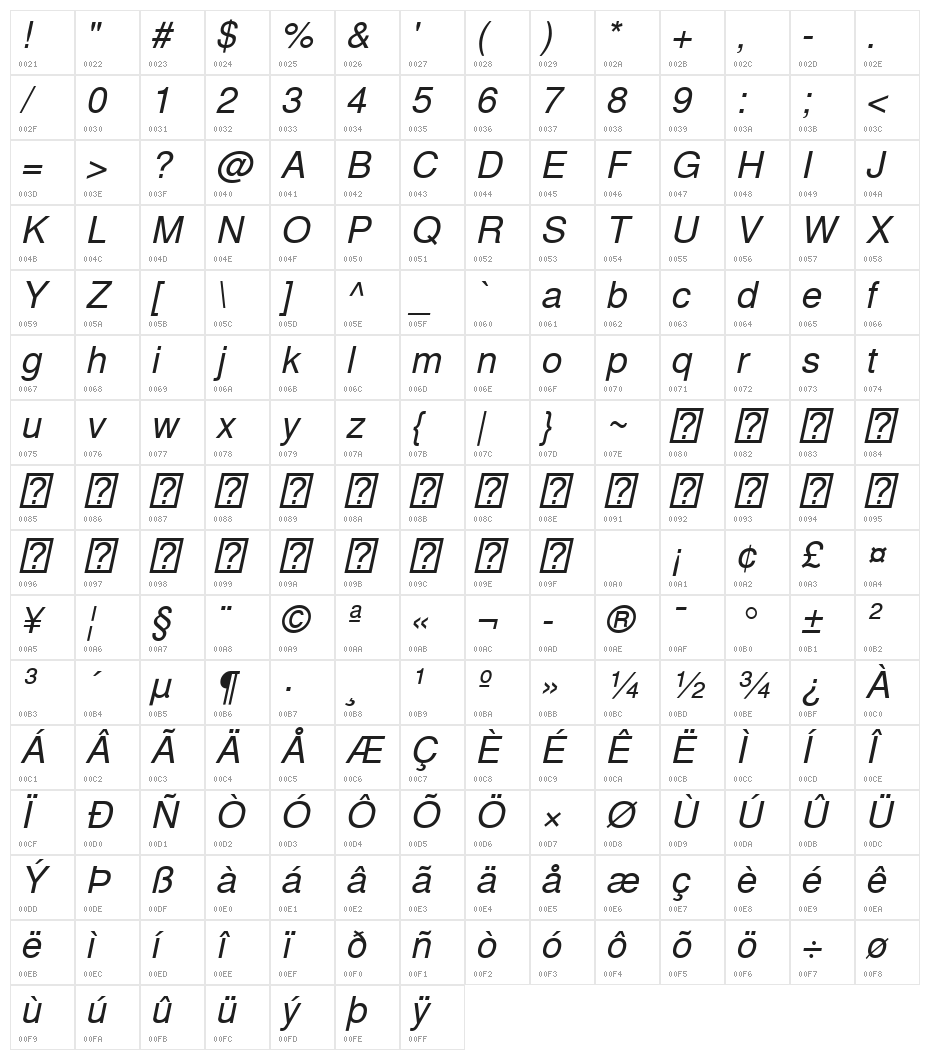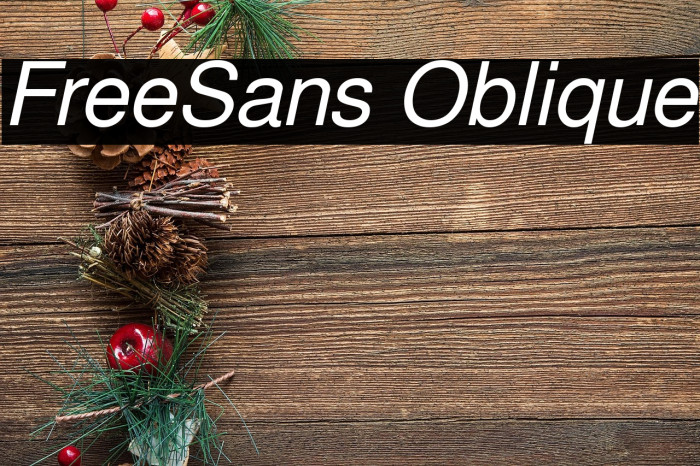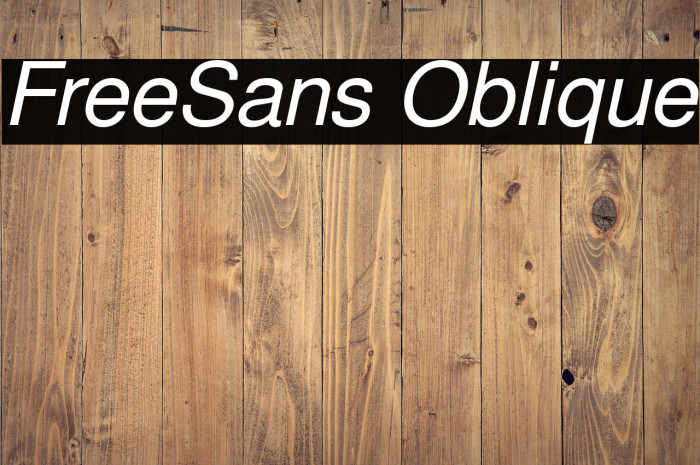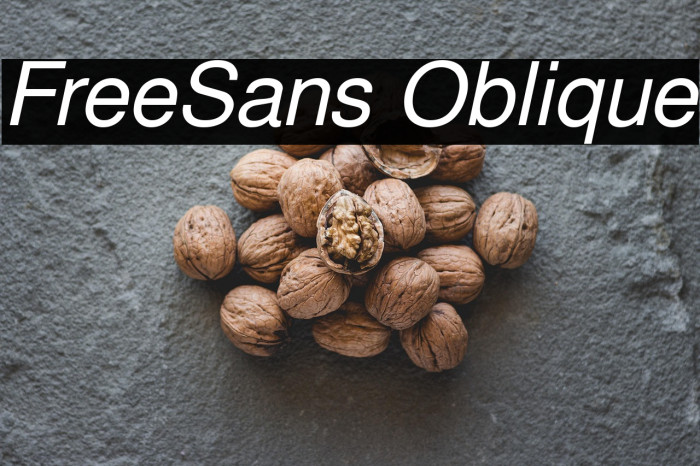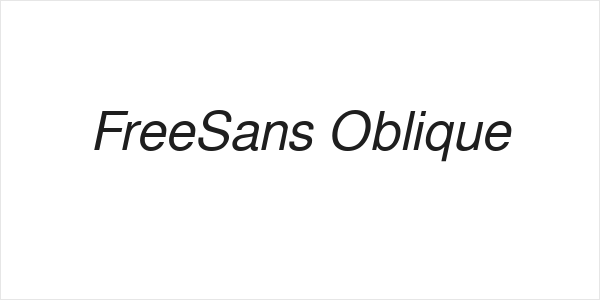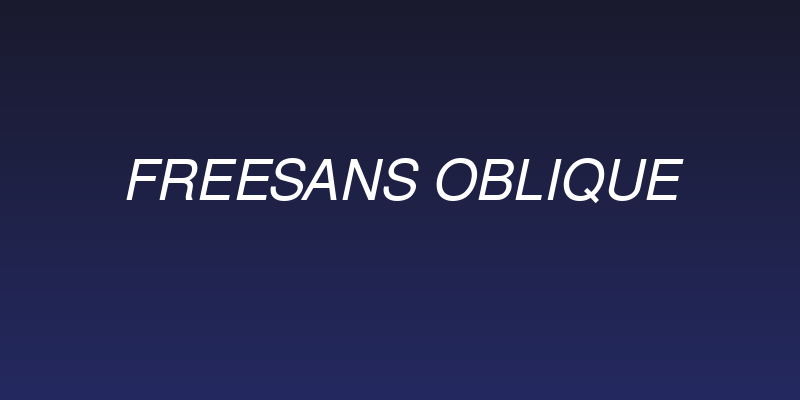
FreeSans Oblique Font
FreeSans Oblique Description
This font features a clean and modern sans-serif style with an oblique slant, giving it a dynamic and forward-leaning appearance. The characters are evenly spaced, providing a balanced and readable text flow. The strokes are consistent in thickness, offering a medium contrast that enhances legibility without sacrificing style. The font's simplicity and clarity make it versatile for various design applications, from digital interfaces to print media. Its oblique nature adds a touch of elegance and movement, making it suitable for projects that require a contemporary and professional look.
| Proposed Projects | Ideal for web design, corporate branding, advertising materials, and editorial layouts. |